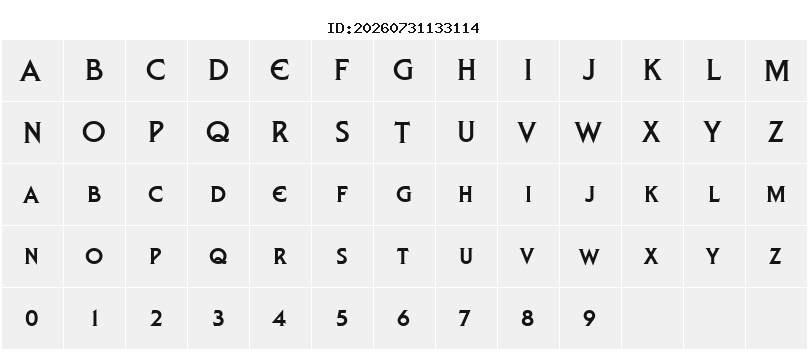
LibertySCD Preview
About LibertySCD.ttf
LibertySCD.ttf is a modern, elegant sans-serif font designed for ultimate readability and visual harmony. Perfect for branding, headlines, web design, and print materials.